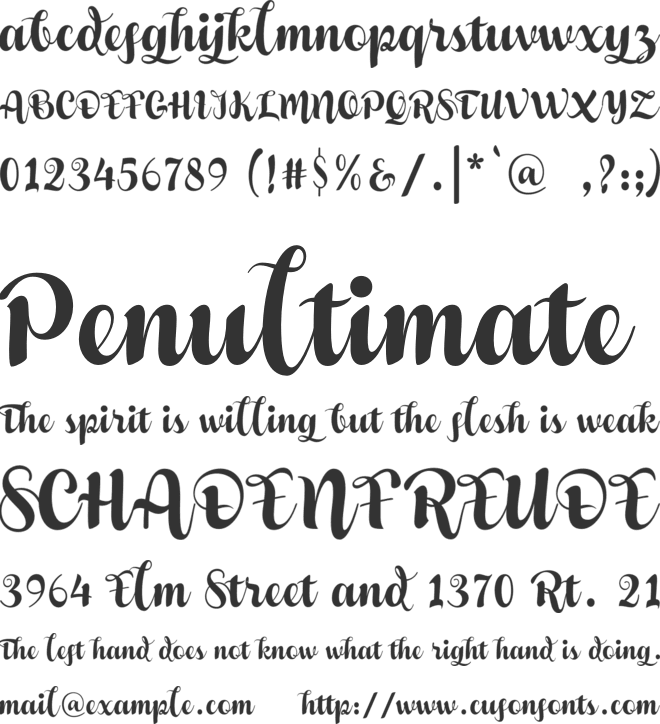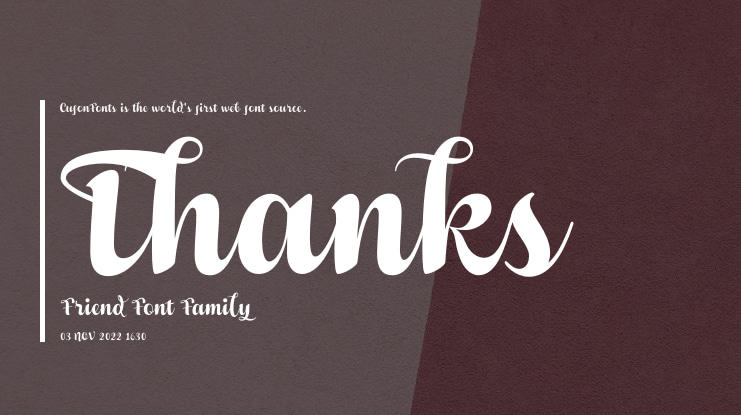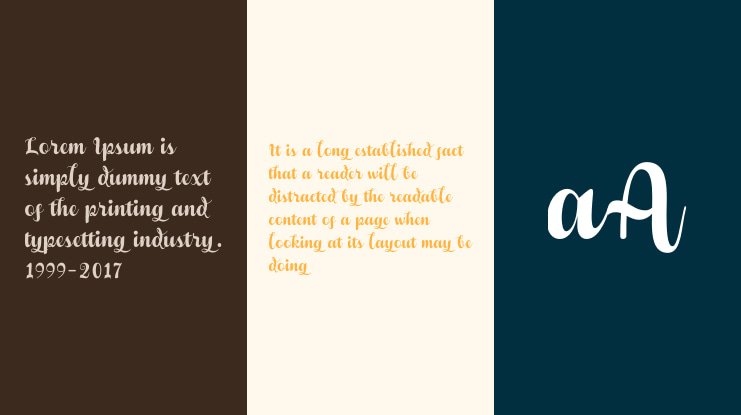
Thanks Friend Font
Thanks Friend is a beautiful script font with thickness suitable for greeting card designs, invitations, t-shirt sublimation, event lettering, and crafts.
This font features a lovely swash in all lowercase and several ligatures and alternatives.